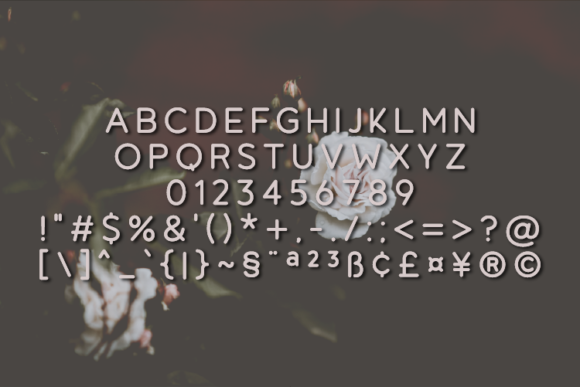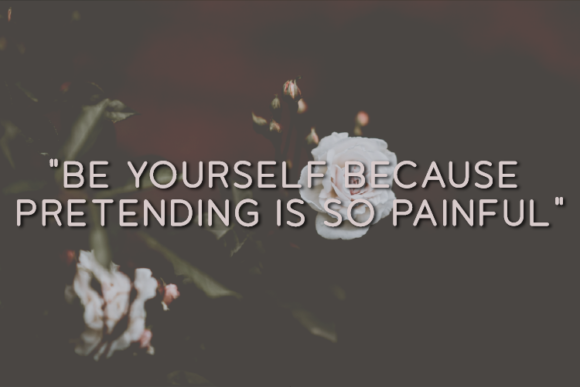
Introducing Blome Font: The Ultimate Sans Serif for Modern Design
Are you on the hunt for a font that’s clean, simple, and effortlessly elegant? Look no further than Blome Font, a stunning sans serif typeface that’s perfect for logos, branding, and web headings. With its smooth and delicate lines, Blome is sure to elevate your design game and leave a lasting impression on your audience.
The Characteristics of Blome Font
Blome Font boasts a range of characteristics that make it an ideal choice for designers and crafters. Here are just a few of its standout features:
- Clean and Simple: Blome’s minimalist design makes it easy to read and versatile enough to be used in a variety of contexts.
- Smooth and Delicate Lines: The font’s smooth lines give it a sophisticated and elegant feel that’s perfect for high-end branding and design projects.
- Sans Serif: Blome’s sans serif design makes it a great choice for digital applications, as it’s easy to read on a range of devices and screen sizes.
Uses for Blome Font
So, what can you use Blome Font for? The possibilities are endless! Here are a few ideas to get you started:
- Logos: Blome’s clean and simple design makes it a great choice for logos that need to be memorable and easy to recognize.
- Branding: The font’s elegant lines and sophisticated feel make it perfect for branding projects that require a high-end look and feel.
- Web Headings: Blome’s sans serif design and smooth lines make it easy to read on a range of devices and screen sizes, making it a great choice for web headings.
- Print Design: The font’s versatility also makes it a great choice for print design projects, such as brochures, flyers, and business cards.
Why Choose Blome Font?
So, why should you choose Blome Font for your next design project? Here are just a few reasons:
- Unique and Memorable: Blome’s clean and simple design makes it a great choice for designers who want to create a unique and memorable brand identity.
- Versatile: The font’s versatility makes it easy to use in a range of contexts, from digital applications to print design.
- Elegant and Sophisticated: Blome’s smooth lines and delicate curves give it an elegant and sophisticated feel that’s perfect for high-end branding and design projects.
Tips for Using Blome Font
Here are a few tips for getting the most out of Blome Font:
- Use it with a Range of Colors: Blome’s clean and simple design makes it easy to pair with a range of colors and patterns.
- Experiment with Different Sizes: The font’s versatility makes it easy to use in a range of sizes, from small headings to large display text.
- Pair it with Other Fonts: Blome’s elegant lines and sophisticated feel make it a great choice for pairing with other fonts to create a unique and memorable brand identity.
In conclusion, Blome Font is a stunning sans serif typeface that’s perfect for designers and crafters who want to create a unique and memorable brand identity. With its clean and simple design, smooth lines, and elegant feel, Blome is sure to elevate your design game and leave a lasting impression on your audience. So why not give it a try and see the difference it can make in your next design project?